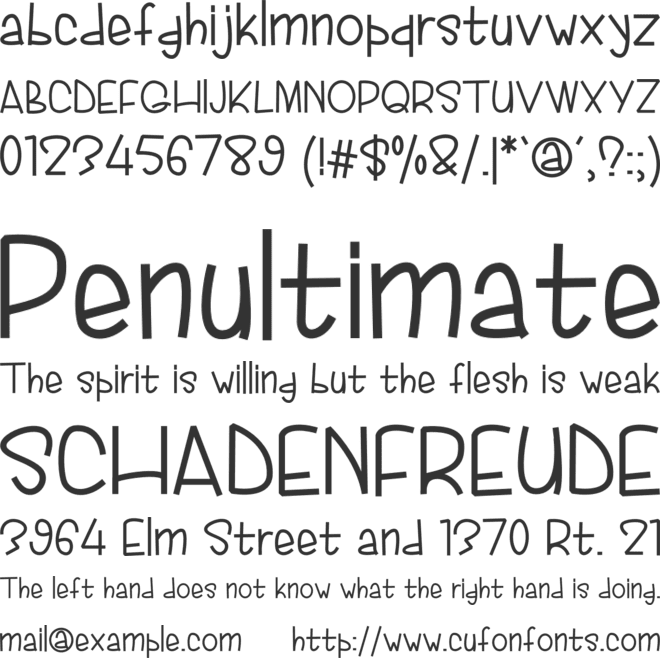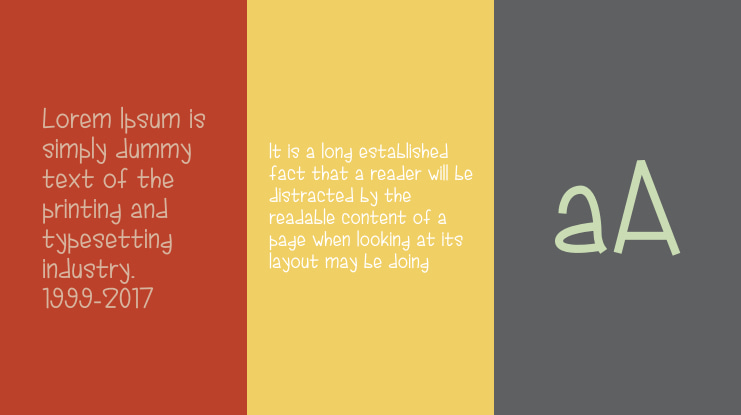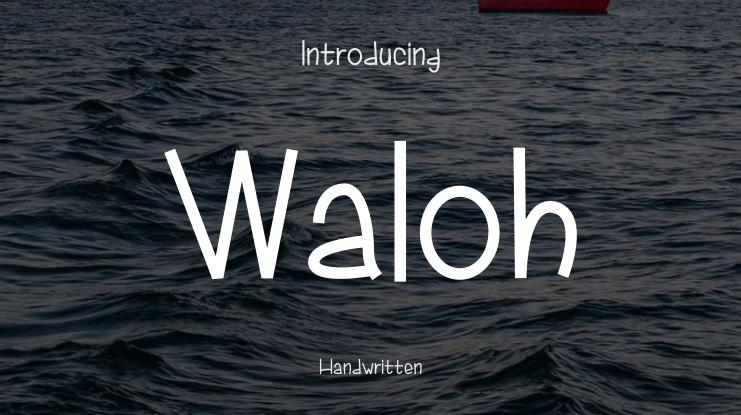
Introducing **Waloh - Playfull Font**
This Font can be used for any variety of purposes, such as:
Event, Social Media Feed,Flyer, Packaging Products, Logo Type, Branding, T-Shirt Design, Website/Blog, Headline Magazine, Brochures and also can be used for other purpose.
This Font Template contains Kids,Child, Playfull, Creative, Professional and Unique Concept.